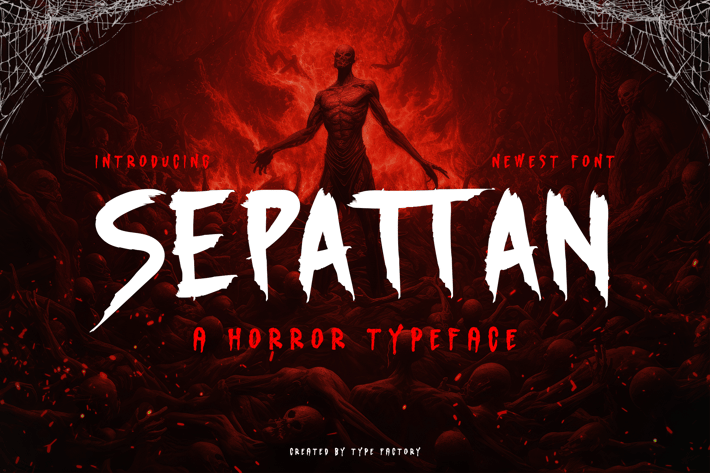
Sepattan - A Horror Typeface
Sepattan is a chilling horror typeface designed to evoke fear and suspense in your designs. With its jagged edges, distorted letterforms, and eerie aesthetic, this typeface is perfect for horror movie posters, spooky event invitations, and anything that aims to send shivers down the spine. The unsettling style of Sepattan captures the essence of the horror genre, making it an essential choice for graphic designers looking to create an atmosphere of dread and intrigue. Whether in print or digital media, Sepattan delivers a haunting visual impact that resonates with fans of the macabre.